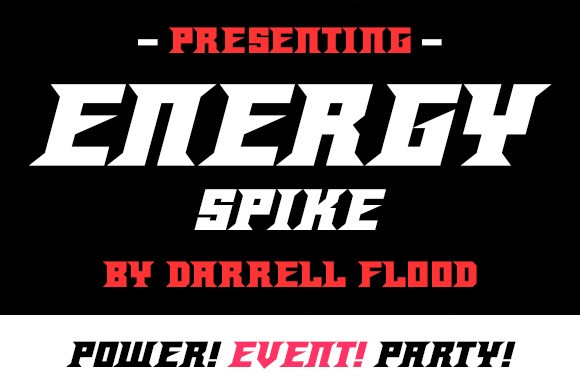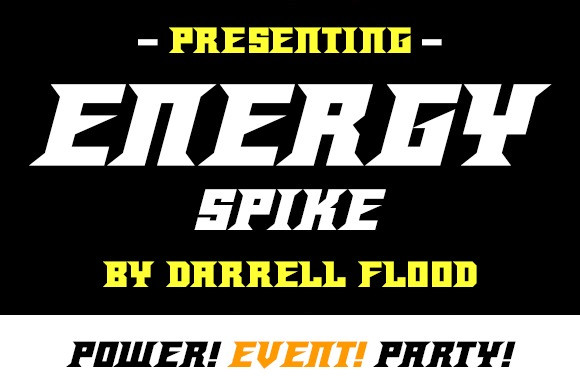
Energy Spike Font
Energy Spike Font,A sharp, energetic font in an expressive, futuristic style. Perfect for action adventures, tech features, energy drinks, and general use anywhere a powerful image is required!